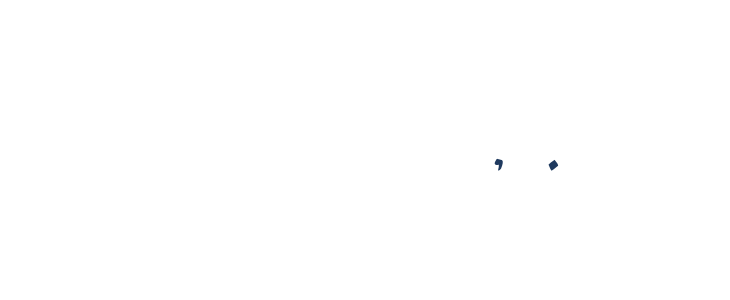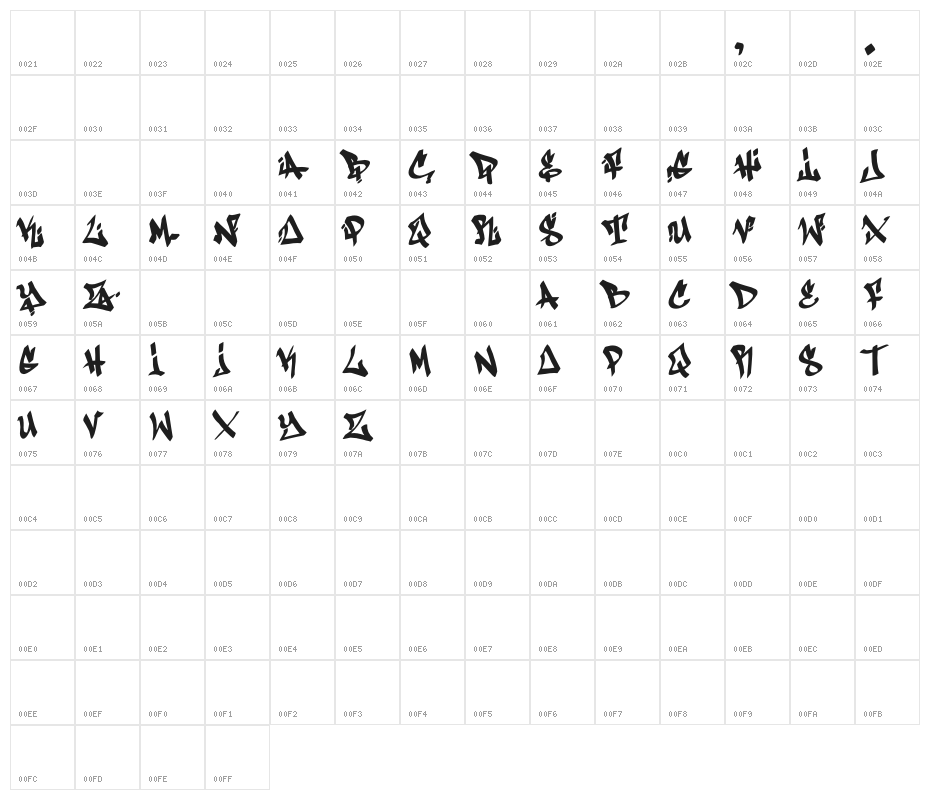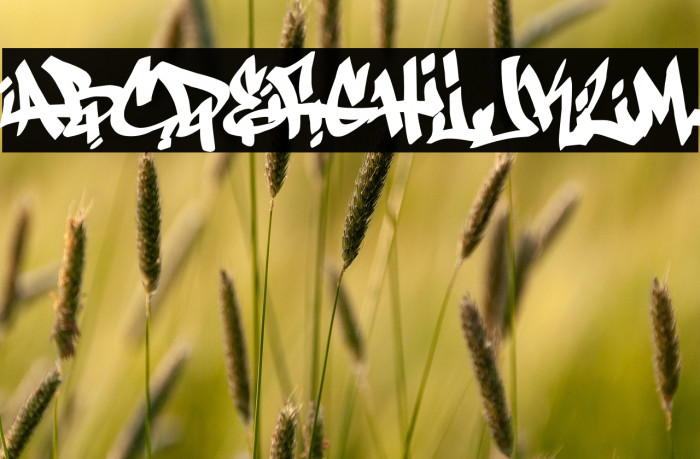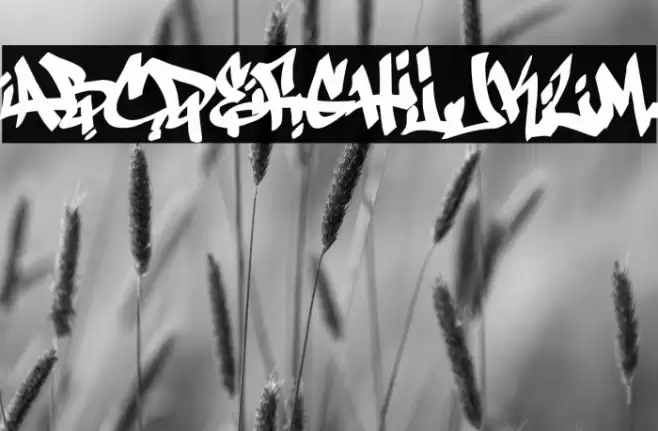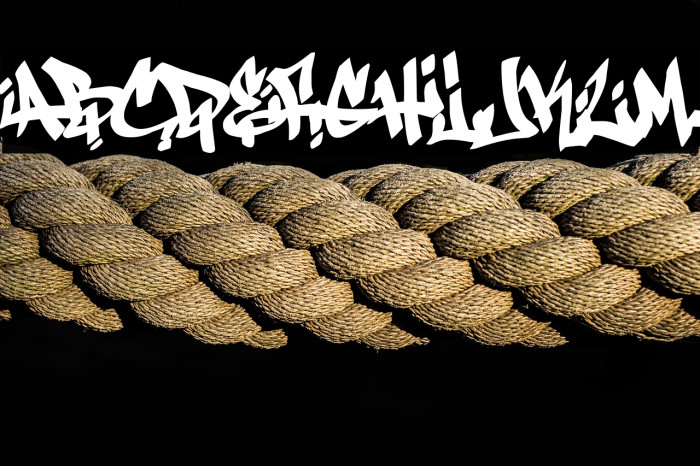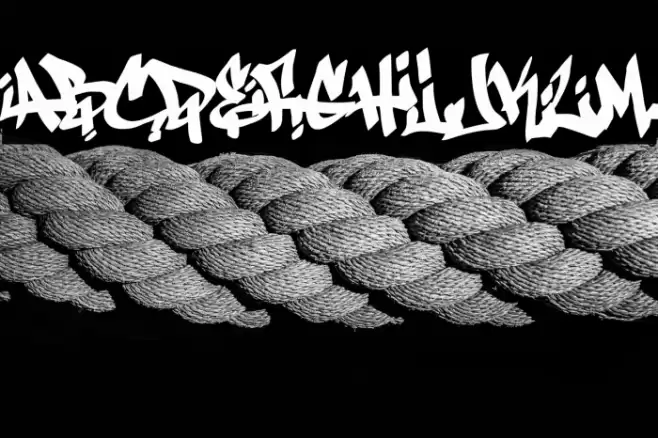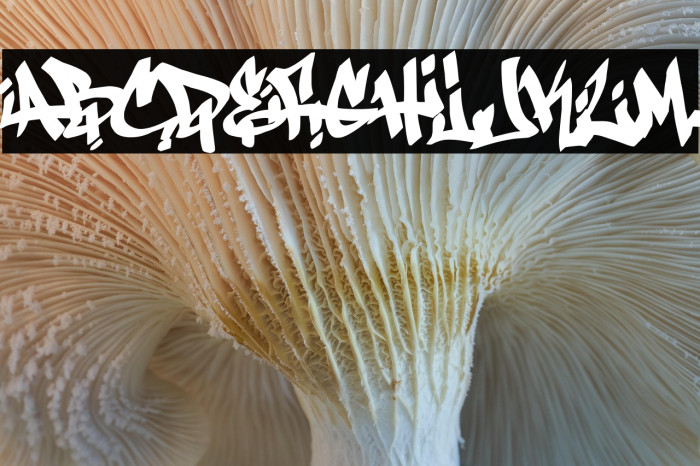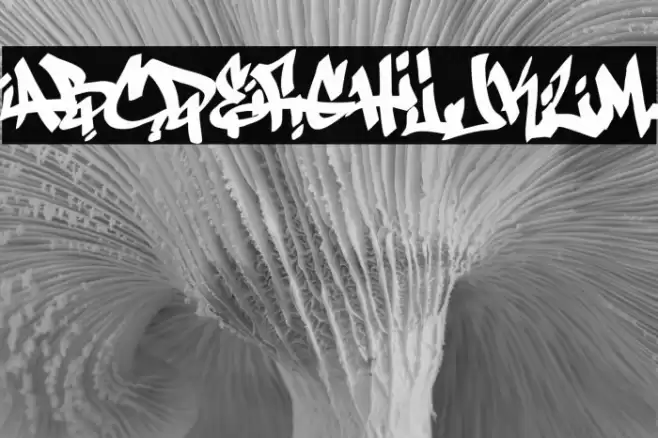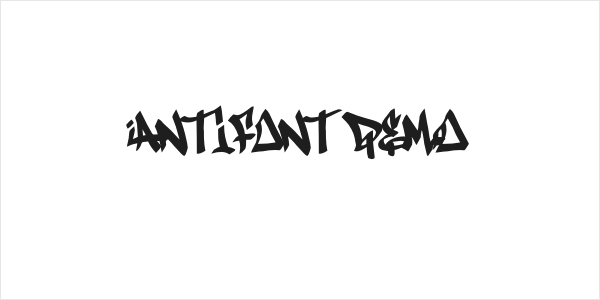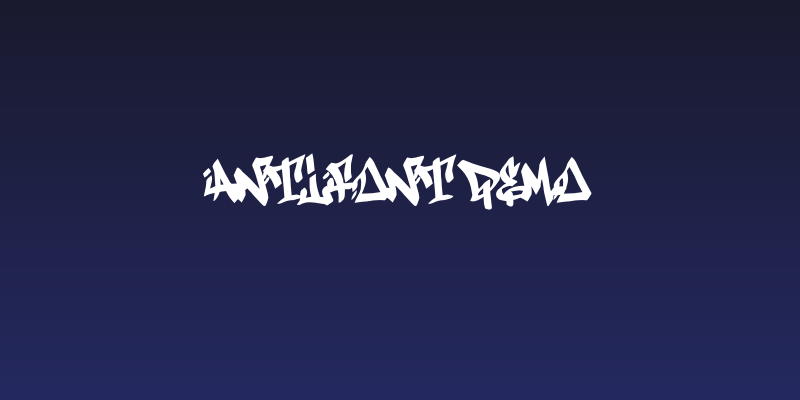
Antifont DEMO Font
Antifont DEMO Description
This font features a bold, graffiti-inspired style with sharp, angular lines and a dynamic, energetic appearance. The characters are highly stylized, with exaggerated curves and points that give them a rebellious, urban feel. The uppercase and lowercase letters maintain a consistent aesthetic, with each character exhibiting unique flair while remaining cohesive as a set. The numbers and special characters follow the same design principles, ensuring uniformity across all glyphs. This font is ideal for projects that require a bold statement or an edgy, street-art vibe.
| Overall Style | Modern, Urban |
| Use Case | Logos, Posters, Headlines |
| Proposed Projects | Ideal for street art designs, urban-themed posters, edgy branding, and music album covers. |